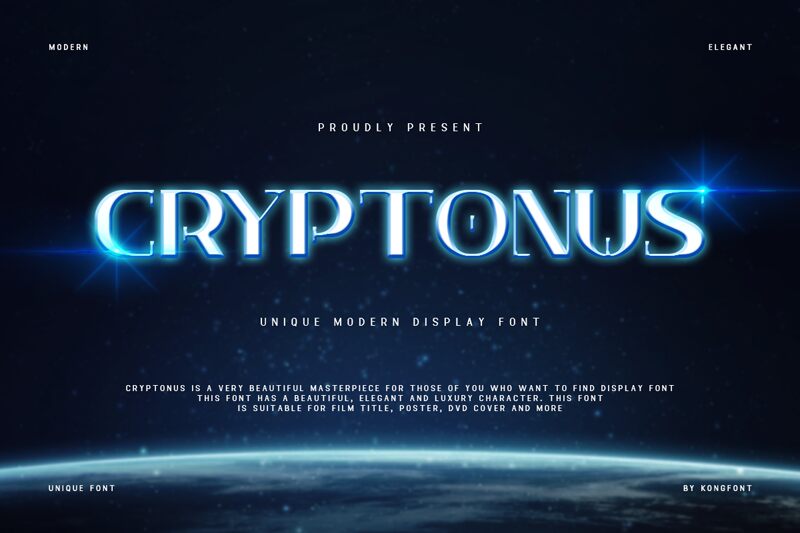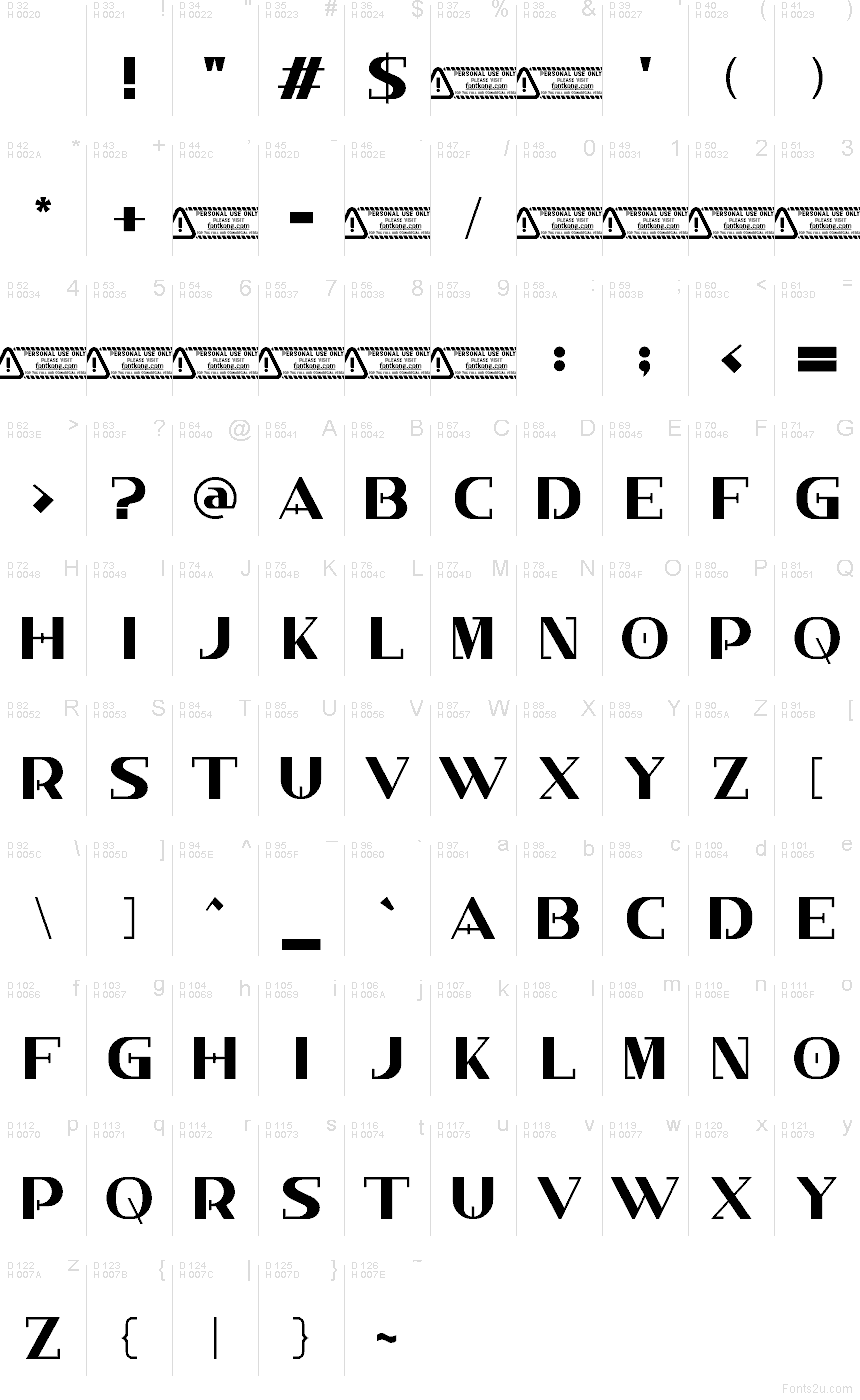
Cryptonus font by Kong Font is a free futuristic display font that fuses razor-sharp geometry with bold, cinematic drama. Wide letterforms stretch across the line with tight inner gaps and abrupt vertical cuts, creating a sense of coded messages or encrypted signals. The heavy strokes feel solid and mechanical, while the smooth outer curves keep it stylish and surprisingly elegant.
Using Cryptonus, headlines grab attention like a movie title sequence—great for sci-fi posters, game logos, crypto or fintech branding, esports teams, album covers, and bold book jackets. This free font thrives at large sizes where its sculpted shapes can breathe; pair it with a clean, light sans serif for body copy to keep layouts readable and futuristic.